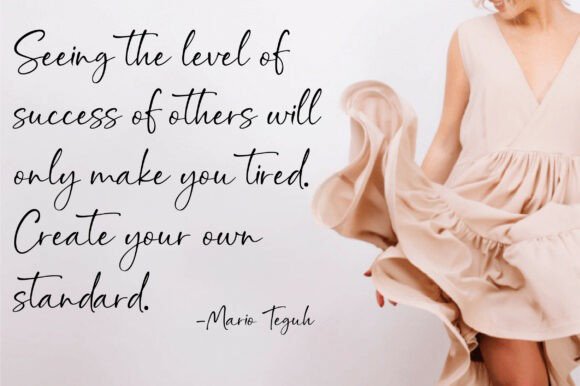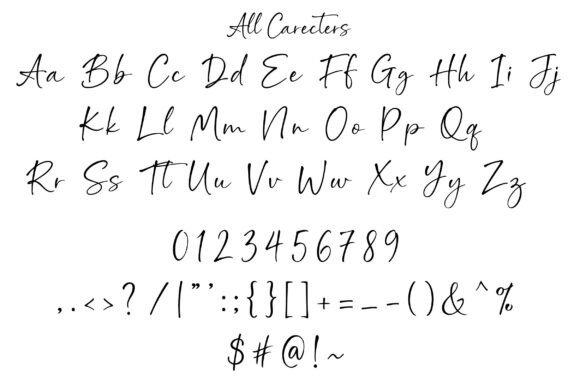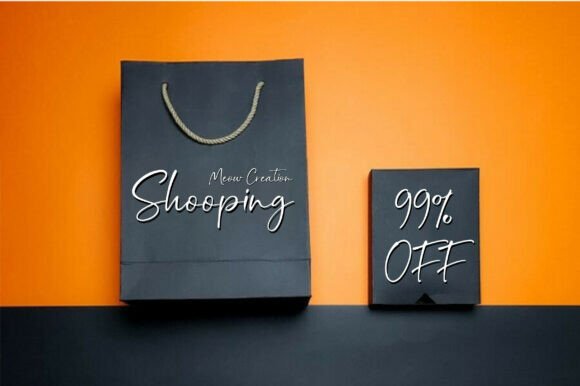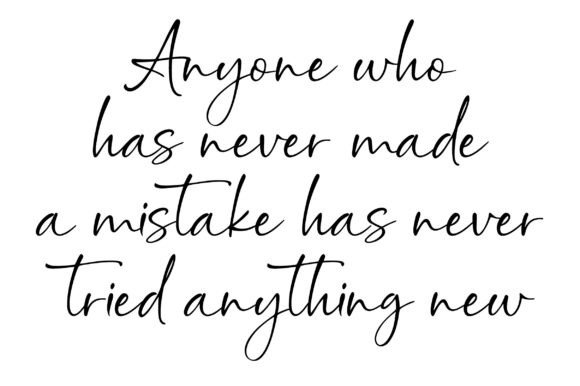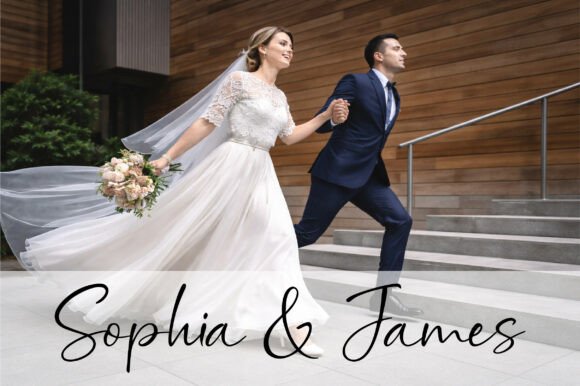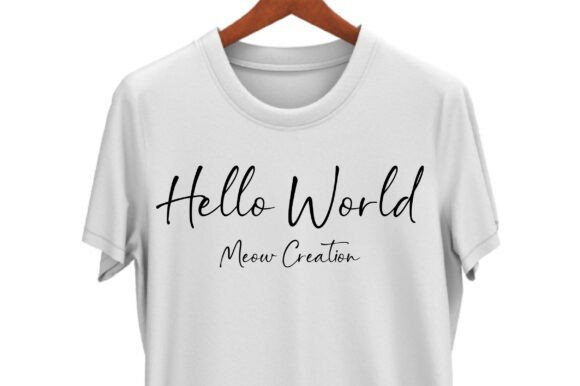
Introducing Autograph Font: Elevate Your Designs with Elegance and Sophistication
Are you looking for a font that can add a personal and stylish touch to your designs? Look no further than Autograph Font, an elegant handwritten script font that is perfect for a variety of projects. With its smooth and natural strokes, Autograph Font is designed to give your designs a soft, authentic handwritten feel that is sure to impress.
What is Autograph Font?
Autograph Font is a modern and classy handwritten script font that is perfect for designers and crafters who want to add a touch of elegance and sophistication to their work. Its smooth and natural strokes give it a soft, authentic handwritten feel that is perfect for a variety of projects, including logos, wedding invitations, quotes, branding, packaging, and social media graphics.
Key Features of Autograph Font
• Elegant Handwritten Script: Autograph Font is a beautifully designed handwritten script font that is perfect for adding a personal touch to your designs.
• Smooth and Natural Strokes: The font features smooth and natural strokes that give it a soft, authentic handwritten feel.
• Modern and Classy Look: Autograph Font has a modern and classy look that makes your designs stand out from the crowd.
• Perfect for a Variety of Projects: The font is perfect for a variety of projects, including logos, wedding invitations, quotes, branding, packaging, and social media graphics.
Why Choose Autograph Font?
There are many reasons why you should choose Autograph Font for your next project. Here are just a few:
• Add a Personal Touch: Autograph Font allows you to add a personal touch to your designs, making them more unique and special.
• Stand Out from the Crowd: The font’s modern and classy look makes your designs stand out from the crowd, grabbing the attention of your audience.
• Easy to Read: Autograph Font is easy to read, making it perfect for use in quotes, sayings, and other text-based designs.
• Versatile: The font is versatile and can be used for a variety of projects, from logos and branding to wedding invitations and social media graphics.
How to Use Autograph Font
Using Autograph Font is easy. Here are a few tips to get you started:
• Logos and Branding: Use Autograph Font to create elegant and sophisticated logos and branding materials that will make your business stand out.
• Wedding Invitations: The font is perfect for use in wedding invitations, adding a touch of elegance and sophistication to your designs.
• Quotes and Sayings: Use Autograph Font to create beautiful quotes and sayings that are perfect for social media graphics, posters, and other designs.
• Packaging: The font can be used to create elegant and sophisticated packaging materials that will make your products stand out on store shelves.
Tips and Tricks for Working with Autograph Font
Here are a few tips and tricks for working with Autograph Font:
• Experiment with Different Sizes: Experiment with different sizes and styles to find the perfect look for your design.
• Pair with Other Fonts: Pair Autograph Font with other fonts to create a unique and interesting look.
• Use in Combination with Images: Use Autograph Font in combination with images to create a beautiful and eye-catching design.
Autograph Font is a beautiful and elegant handwritten script font that is perfect for designers and crafters who want to add a personal and stylish touch to their work. With its smooth and natural strokes, modern and classy look, and versatility, Autograph Font is the perfect choice for a variety of projects. Whether you’re creating logos, wedding invitations, quotes, branding materials, packaging, or social media graphics, Autograph Font is sure to impress.